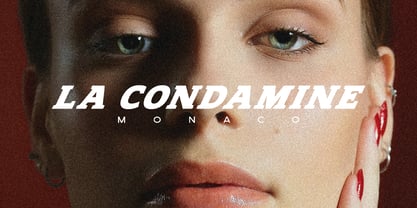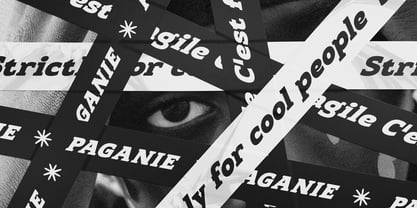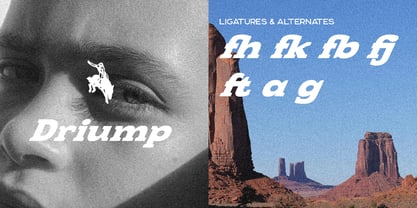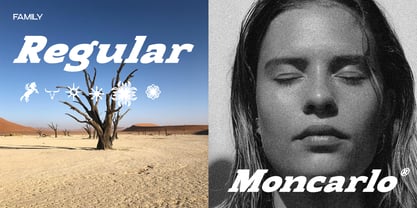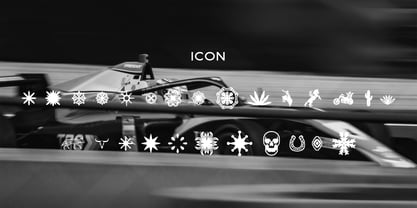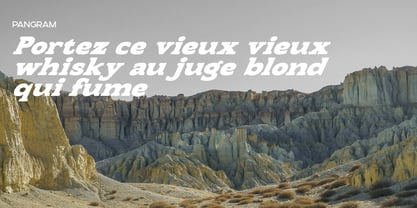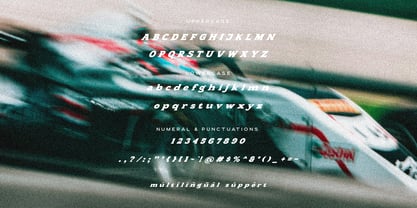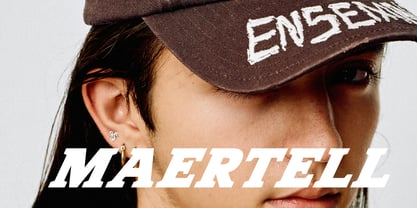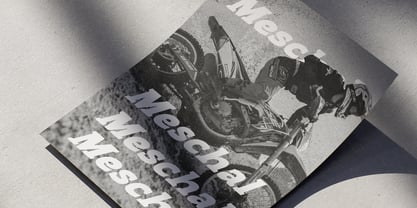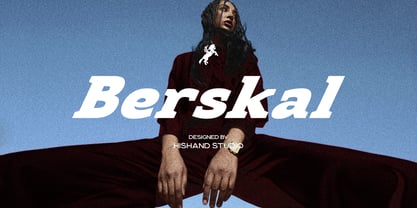
Berskal
by Hishand Studio
The Berskal Font Family was designed by Putu Dody Permana and published by Hishand Studio. Berskal contains 2 styles and family package options. More about this family
Berskal is a bold serif display font with a confident and expressive character. Its strong letterforms and angled details create a dynamic look that feels modern while still rooted in classic serif structure. The slightly slanted shapes add movement and attitude, giving the font a distinctive presence that stands out immediately in any layout. The strokes are thick and well balanced, offering excellent readability at large sizes without losing visual interest. Berskal carries a stylish edge that works well with fashion-focused designs, editorial headlines, posters, and branding projects that aim to feel striking and contemporary. The serif details are sharp but controlled, helping the font remain clean and refined rather than decorative. Berskal pairs naturally with minimal layouts, photography, and bold compositions, allowing it to become a strong focal point. It is especially effective for logos, magazine covers, campaign visuals, and statement typography where impact and character are essential. This font brings strength, style, and clarity to modern design work. Complete with - ligatures - alternates - regular - icon - kerning - multilingual support